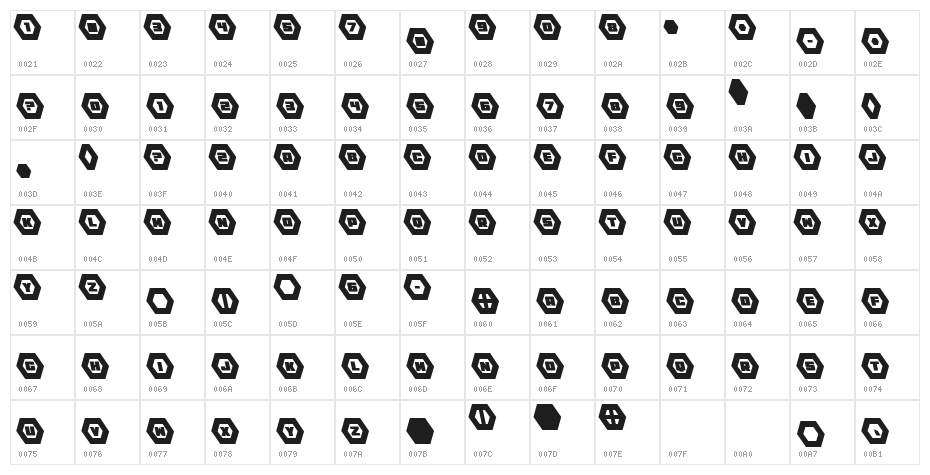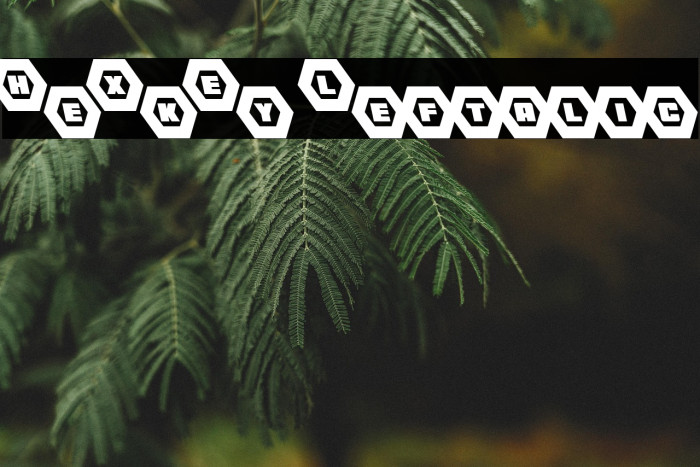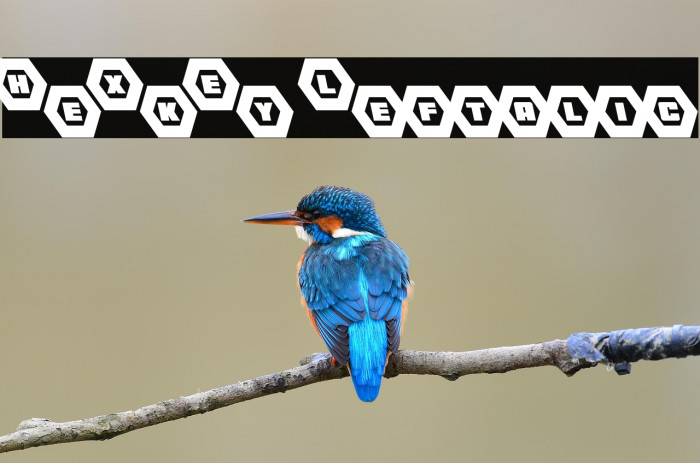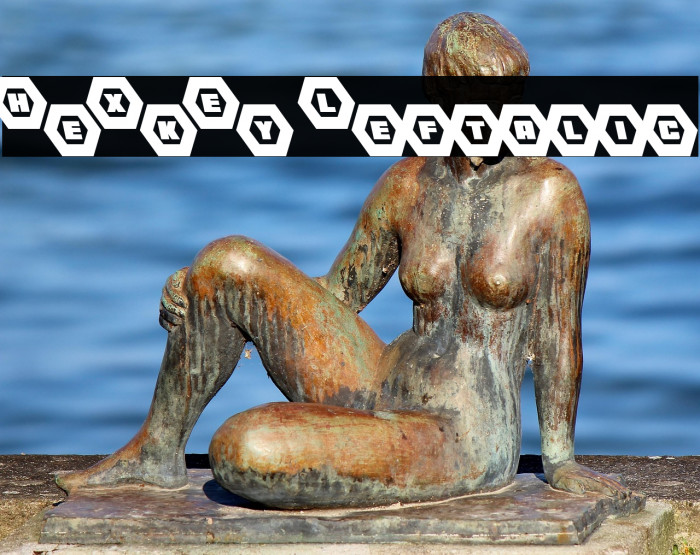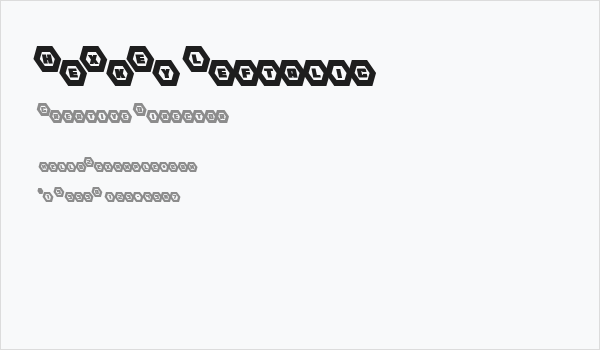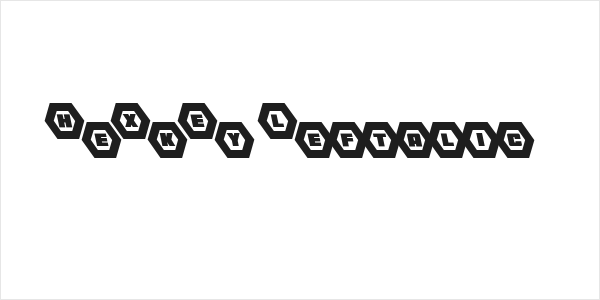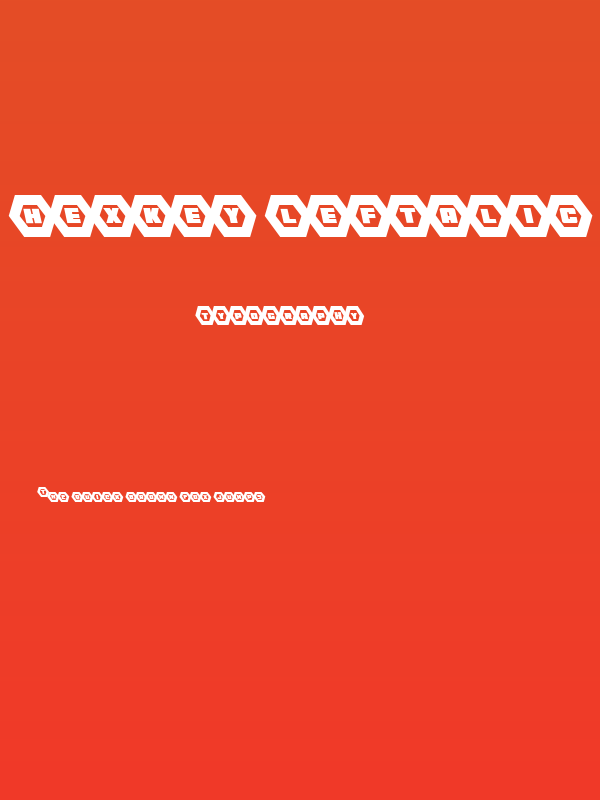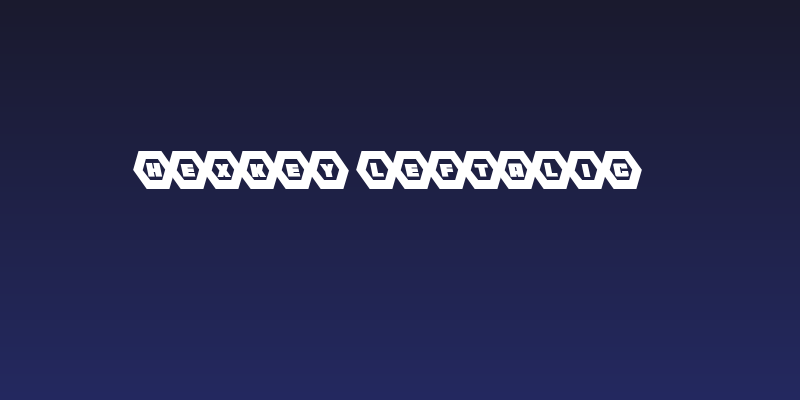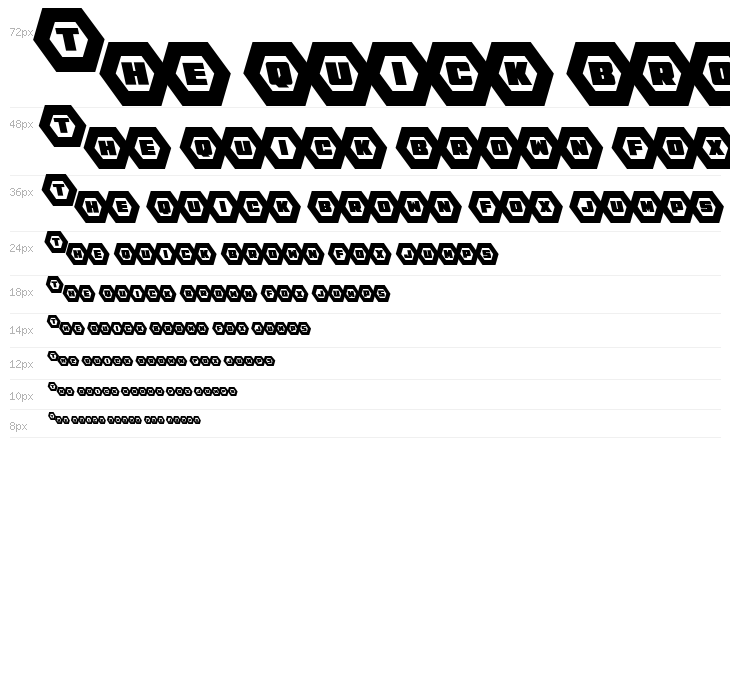
HeXkEy Leftalic Font
HeXkEy Leftalic Description
This font features a bold and geometric design, with each character encased in a hexagonal shape. The letters and numbers are presented in a blocky, three-dimensional style that gives a sense of depth and solidity. The uniformity of the hexagonal frames creates a cohesive and structured appearance, making it stand out with a unique, futuristic vibe. The font is highly legible due to its clear and distinct shapes, despite the decorative nature of the hexagonal outlines. This design is particularly eye-catching and would be suitable for projects that require a modern and innovative look.
| Overall Style | Futuristic, Modern |
| Proposed Projects | Ideal for technology-themed designs, video game graphics, futuristic branding, and eye-catching posters. |